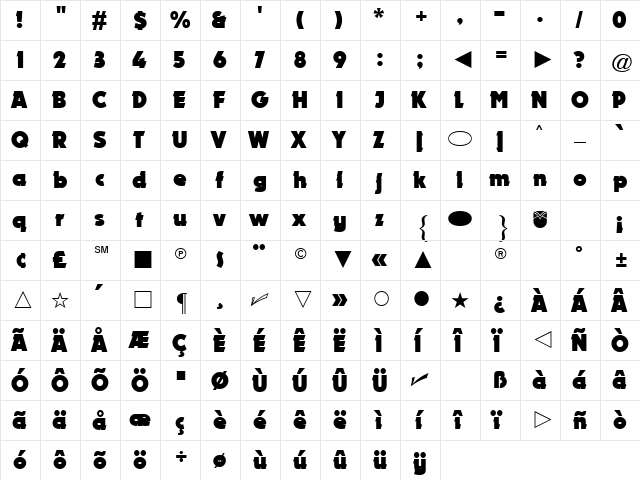
Dynamo Regular
Design Context for Dynamo Typeface
Dynamo takes a measured approach to typography — its balanced proportions and neutral character make it a reliable workhorse for both digital and print work.